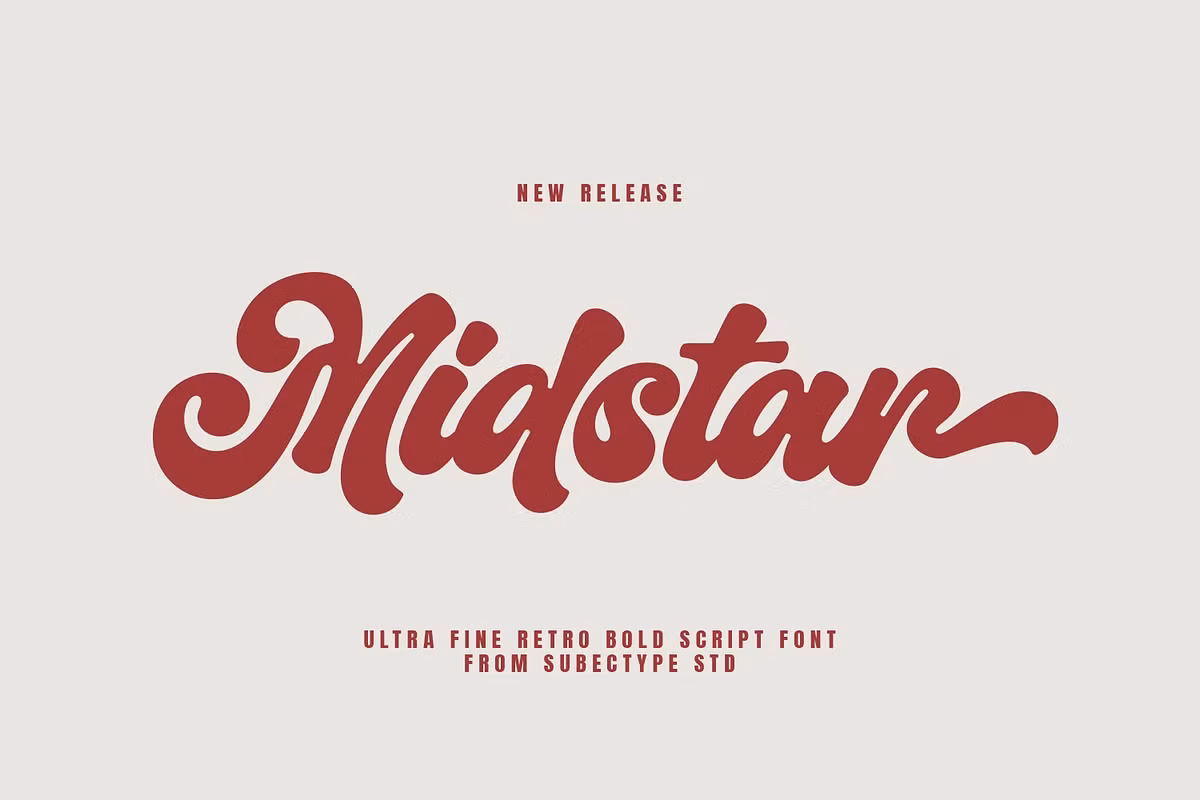
The Midstar - Vintage Retro Font Free Download is a bold and nostalgic typeface that channels the energy of vintage signage, classic advertising, and retro pop culture. Perfect for branding, posters, logos, t-shirt designs, and any project that needs a vibrant, old-school touch, this font adds a fun, dynamic feel to your work.
With its unique letterforms and a strong, distinctive style, Midstar brings a timeless, retro flair to any design. It includes uppercase and lowercase letters, numbers, punctuation, and multilingual support, offering versatility for a variety of creative uses.